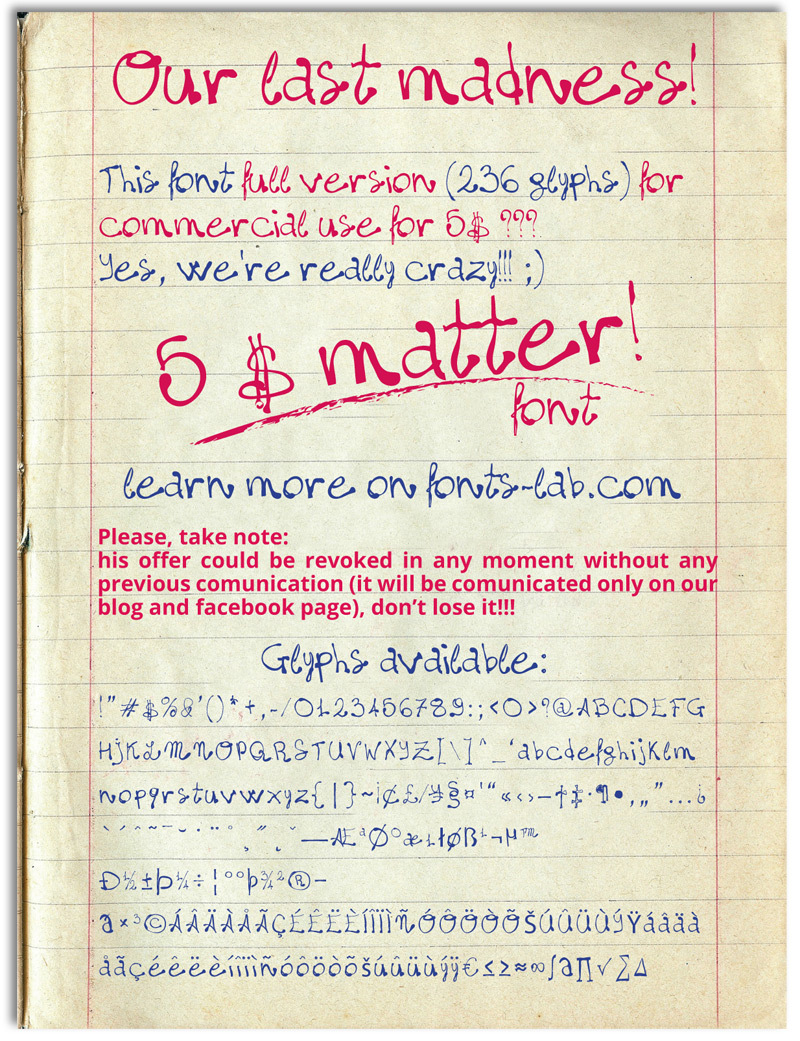
Five Matter! is a free handwritten font with sweeping loops, abrupt turns, and sharply changing stroke widths. The lettering looks hurried, elastic, and deliberately hard to tame.
Its street-art flavor suits music posters, skate merchandise, and youth event graphics, where the distorted shapes can become part of the artwork. Fashion labels and album covers aimed at experimental, independent audiences can use its raw gestures as a recognizable signature.